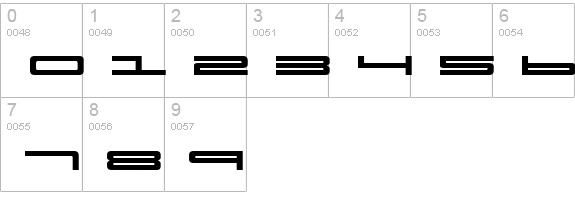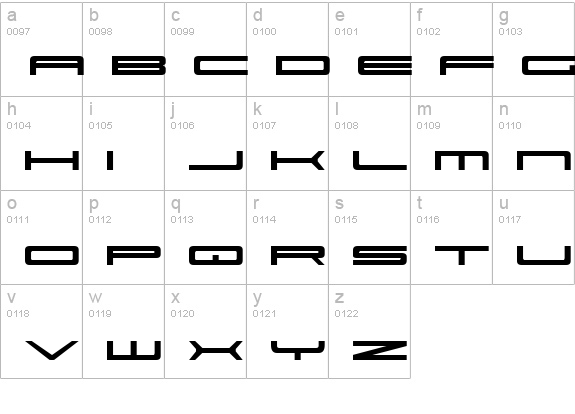
Ultra 911 is an extreme-weight, display variant in the Ultra typeface family \xE2\x80\x94 well suited to extreme display use where maximum visual weight is required.
Introducing Ultra 911, a captivating and dynamic font that exudes a sense of urgency and power. This font is designed to grab attention and make a bold statement, perfect for projects that require a strong visual impact. With its sharp edges and sleek lines, Ultra 911 commands attention and demands to be noticed. But what sets Ultra 911 apart from other fonts is that it is not only visually striking, but also freely available to download. Yes, you read that right – this remarkable font can be yours without spending a dime. At FontsMarket.com, you can easily access and download Ultra 911, allowing you to enhance your design projects without breaking the bank. Whether you are working on a poster, logo, website, or any other creative endeavor, Ultra 911 will elevate your work to new heights. Its bold and assertive nature will captivate viewers and leave a lasting impression. The versatility of this font allows it to seamlessly adapt to various design styles, making it a valuable tool in any designer's arsenal. Furthermore, Ultra 911 is not only visually stunning, but also highly legible. Its clean and well-defined characters ensure that your message is delivered with clarity and precision, even from a distance. This makes it an ideal choice for signage, advertisements, and any project where readability is crucial. With the freedom to download Ultra 911 for free, you have the opportunity to unleash your creativity without any limitations. Whether you are a professional designer or a passionate hobbyist, this font will inspire and empower you to push the boundaries of your imagination. So don't miss out on this incredible opportunity. Visit FontsMarket.com today and experience the captivating power of Ultra 911 for yourself. Download it freely and embark on a creative journey that will leave an indelible mark on your designs. Ultra 911 – where boldness meets freedom.